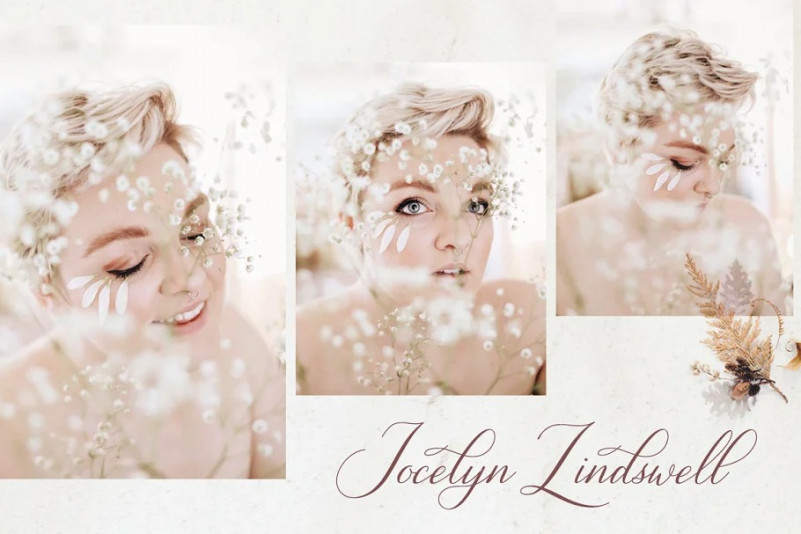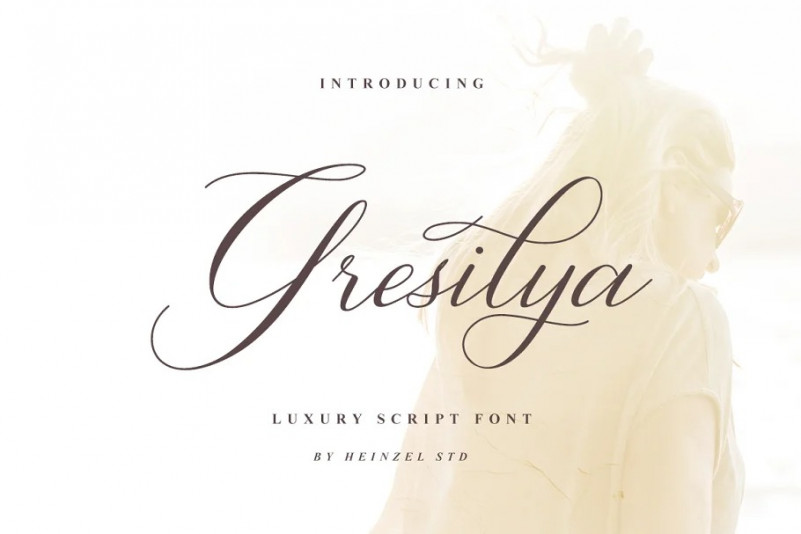
Gresilya Font
Gresilya Calligraphy Font
It’s a calligraphic script font that comes with exquisite character changes, designed with high detail for an elegant style. It is PUA encoded which means you can access all of the glyphs with ease! It features a varying baseline, smooth lines, gorgeous glyphs and stunning alternates. It maintains its classy calligraphic influences while feeling contemporary and fresh. Fall in love with this font and bring your projects to the highest levels!
Gresilya also includes full set of uppercase and lowercase letters, multilingual symbols, numerals, punctuation and ligatures. The font has smooth wet ink texture, so would be perfect for all types of printing techniques+you can do embroidery, laser cut, gold foil etc.